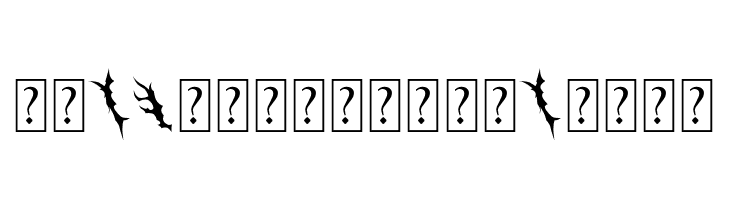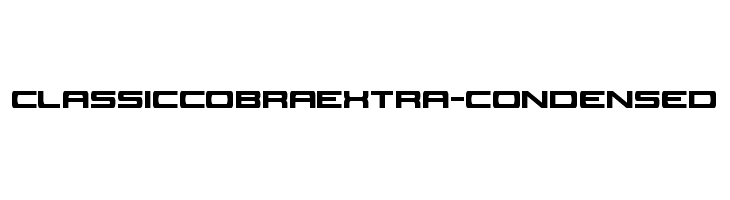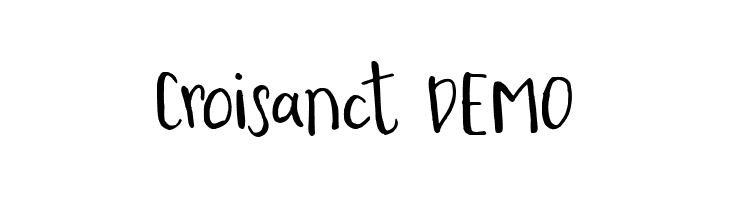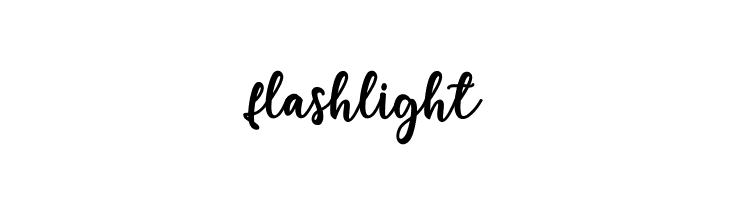
A bold, geometric font with a futuristic and edgy style.
A lively and expressive handwritten font with fluid, dynamic strokes.
A bold, playful handwritten font with a casual and friendly style.
A bold, geometric font with decorative elements enclosed in square frames.
A bold, semi-italic font with a modern and dynamic style.
A bold, hollow, military-inspired font with sharp angles and clean lines.
A sleek, modern typeface with clean lines and a minimalist aesthetic.
A bold, geometric font with high contrast and tight spacing, ideal for impactful headlines.
An elegant, flowing script font with tall ascenders and consistent stroke width.
A bold, italic serif font with elegant slanted characters.